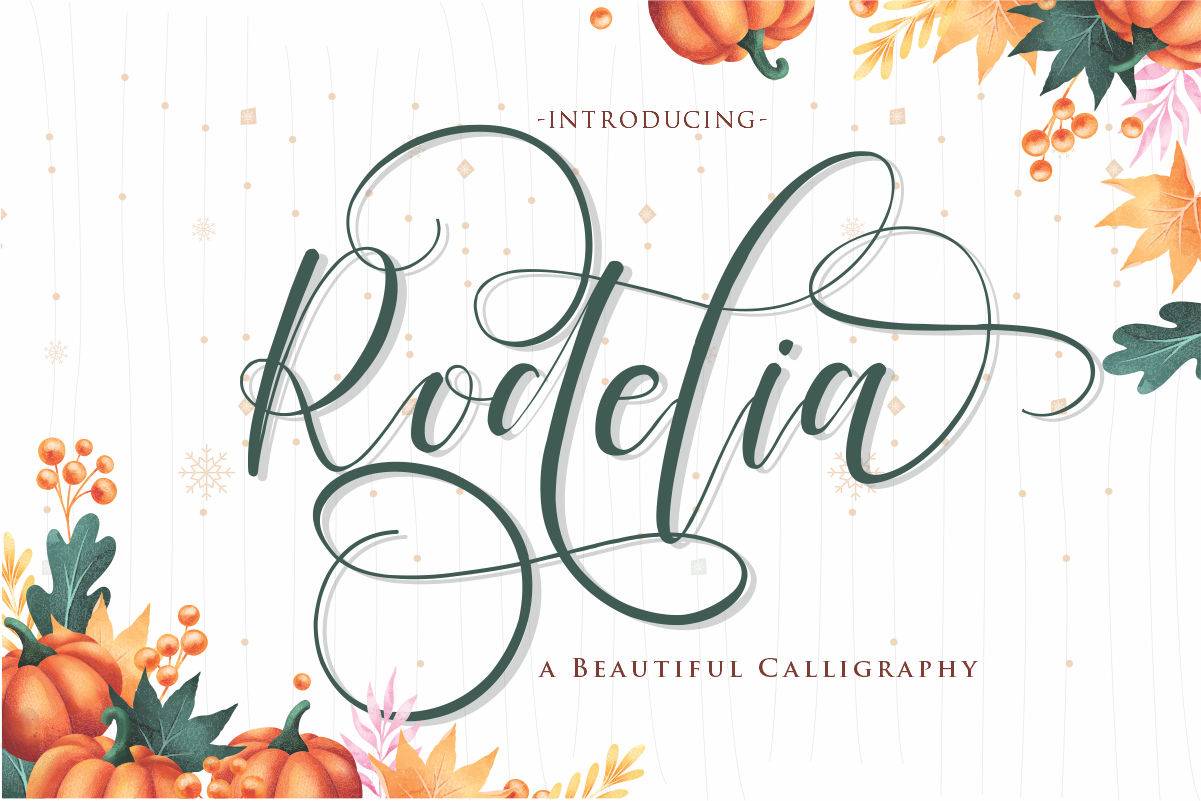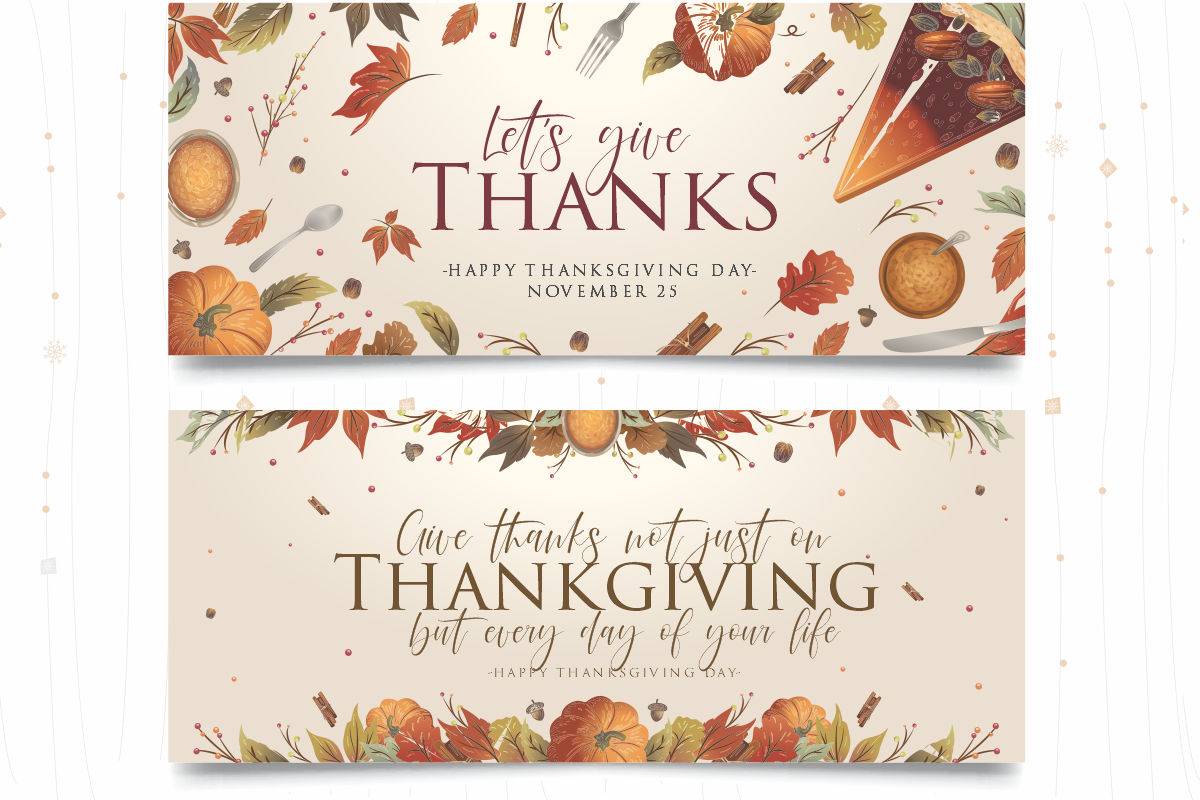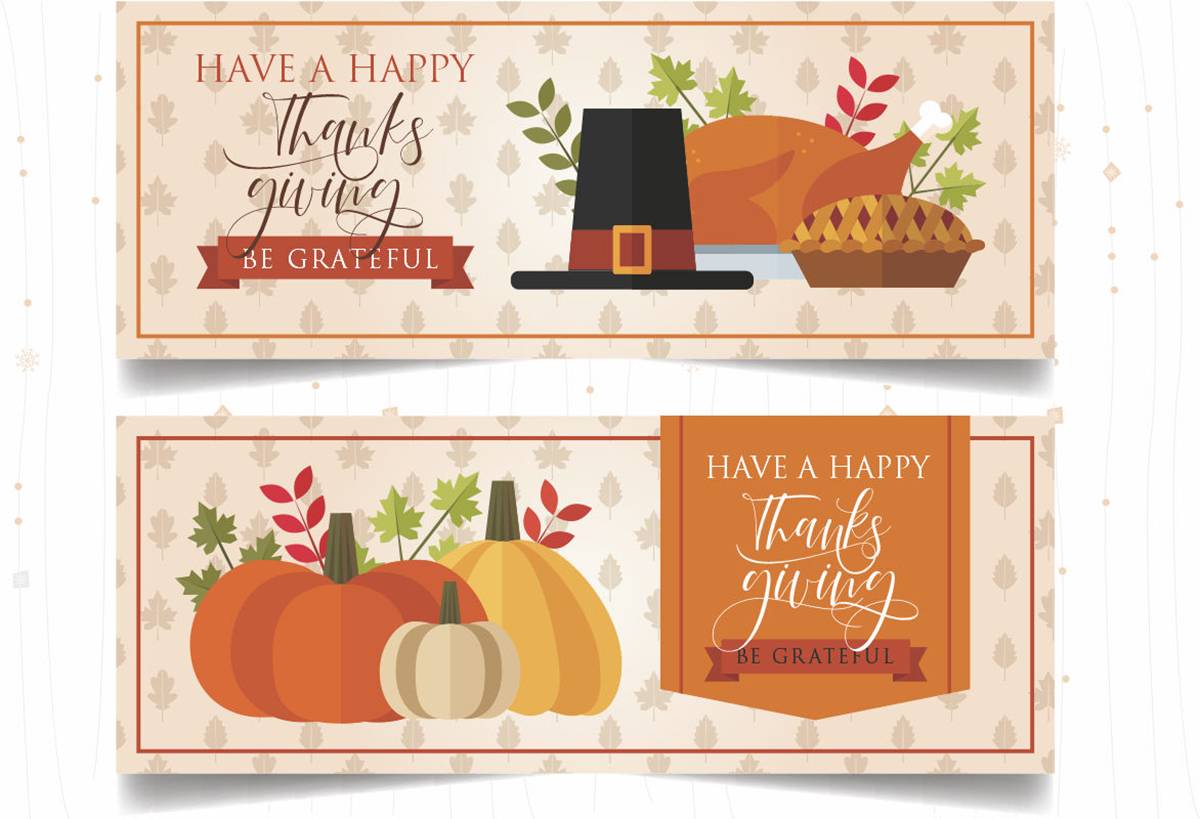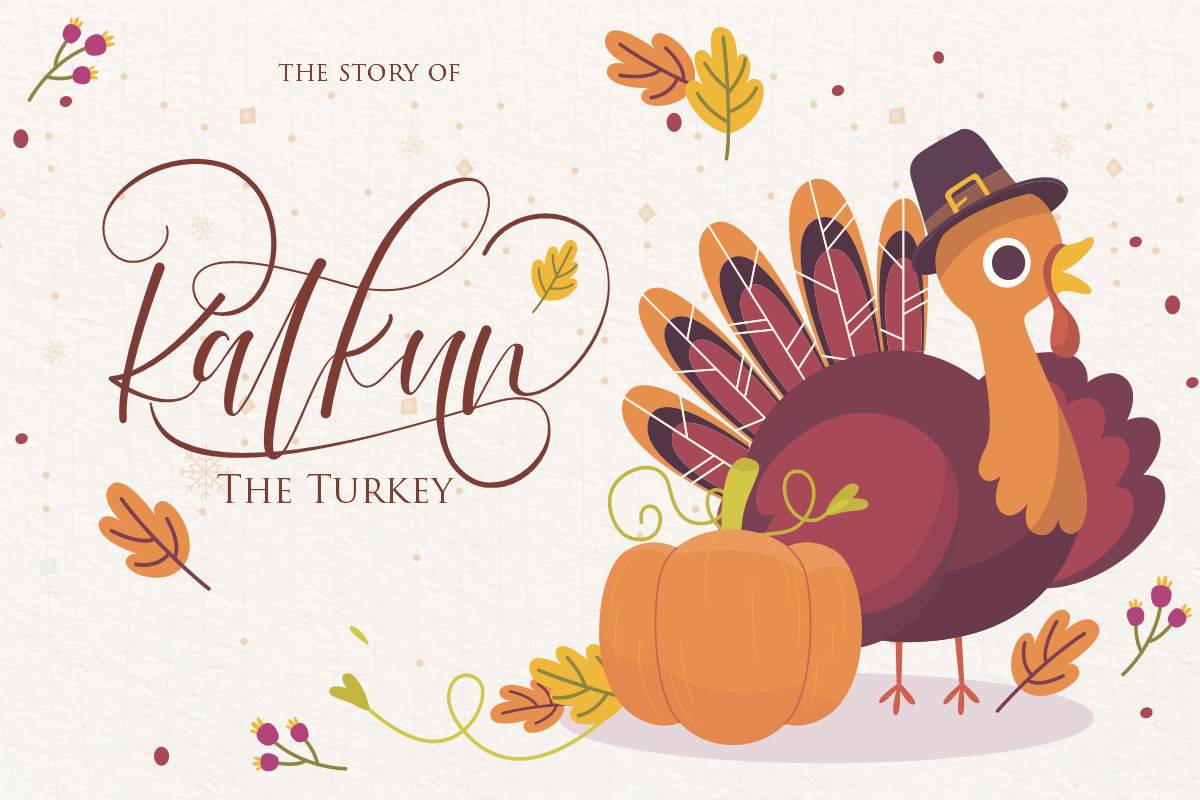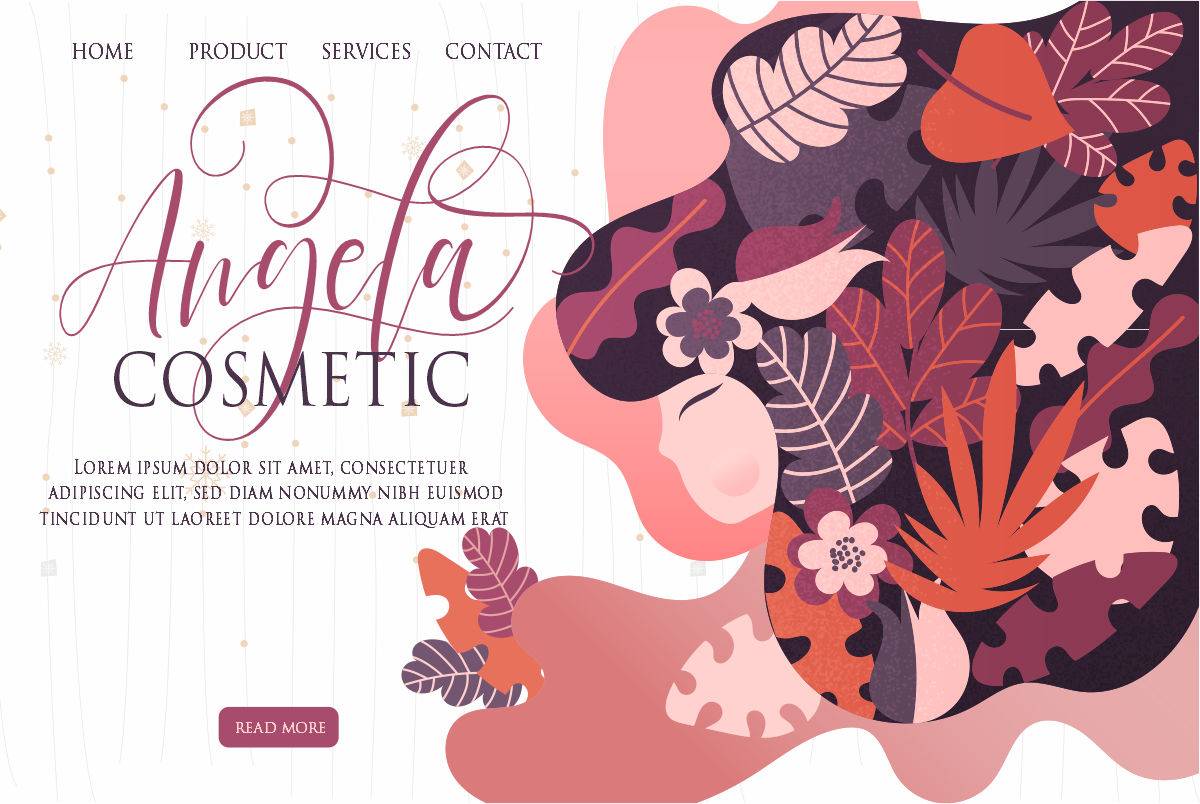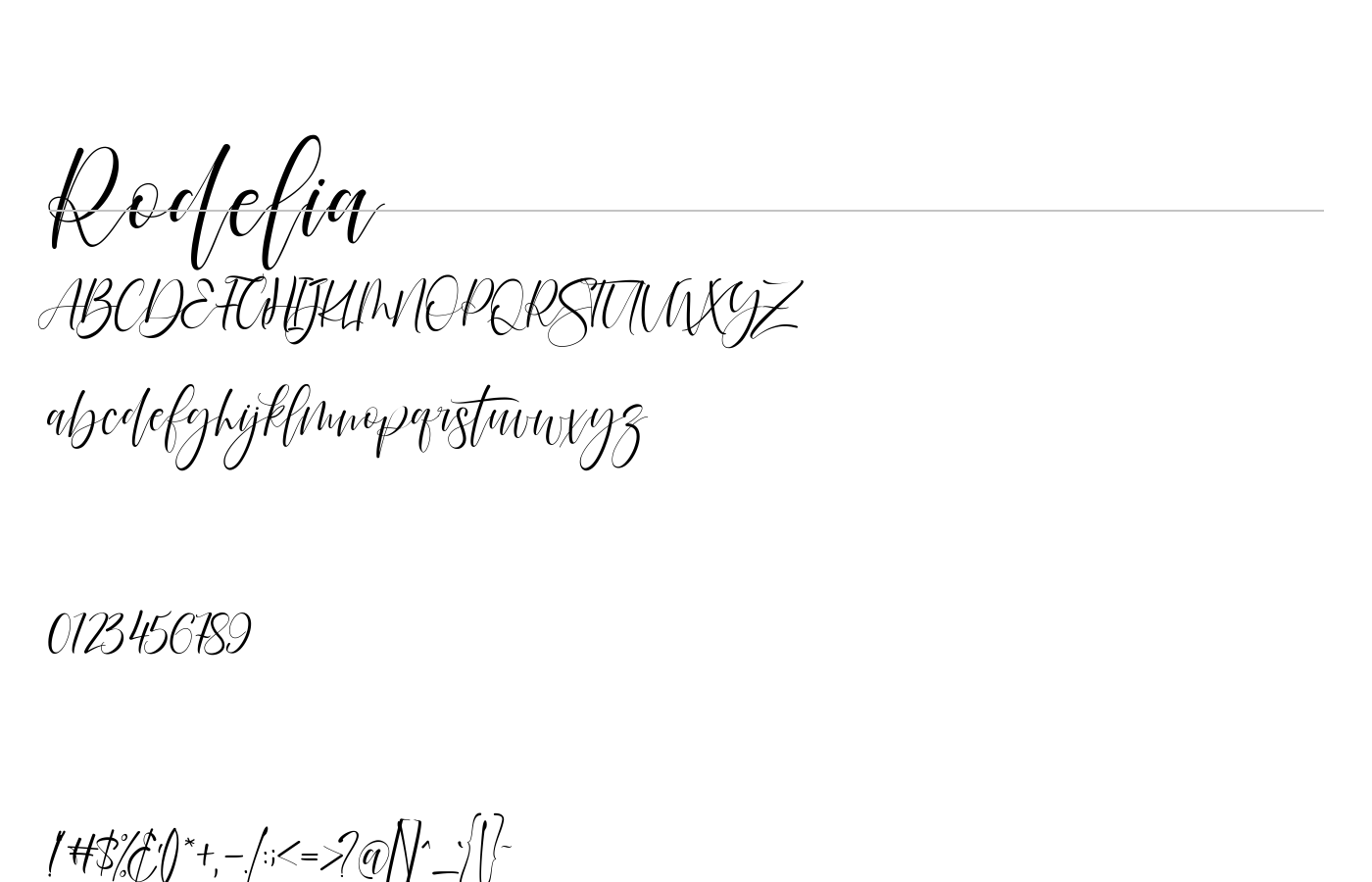
Rodelia is an elegant script font featuring graceful, flowing letterforms with high contrast strokes that mimic sophisticated hand lettering. Its slender, fluid lines and delicate curves give it a refined and romantic feel, making it ideal for wedding invitations, luxury branding, and feminine editorial designs where a touch of elegance and charm is desired. This font works beautifully in headlines and decorative text, adding a stylish, personal touch without compromising legibility.
| Font family | Rodelia Font |
| Designer | Gilar Studio |